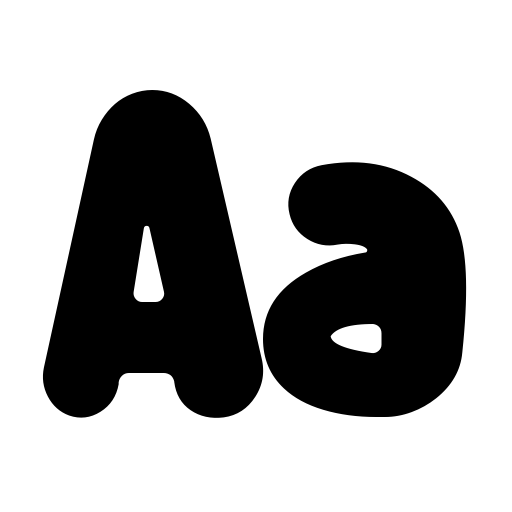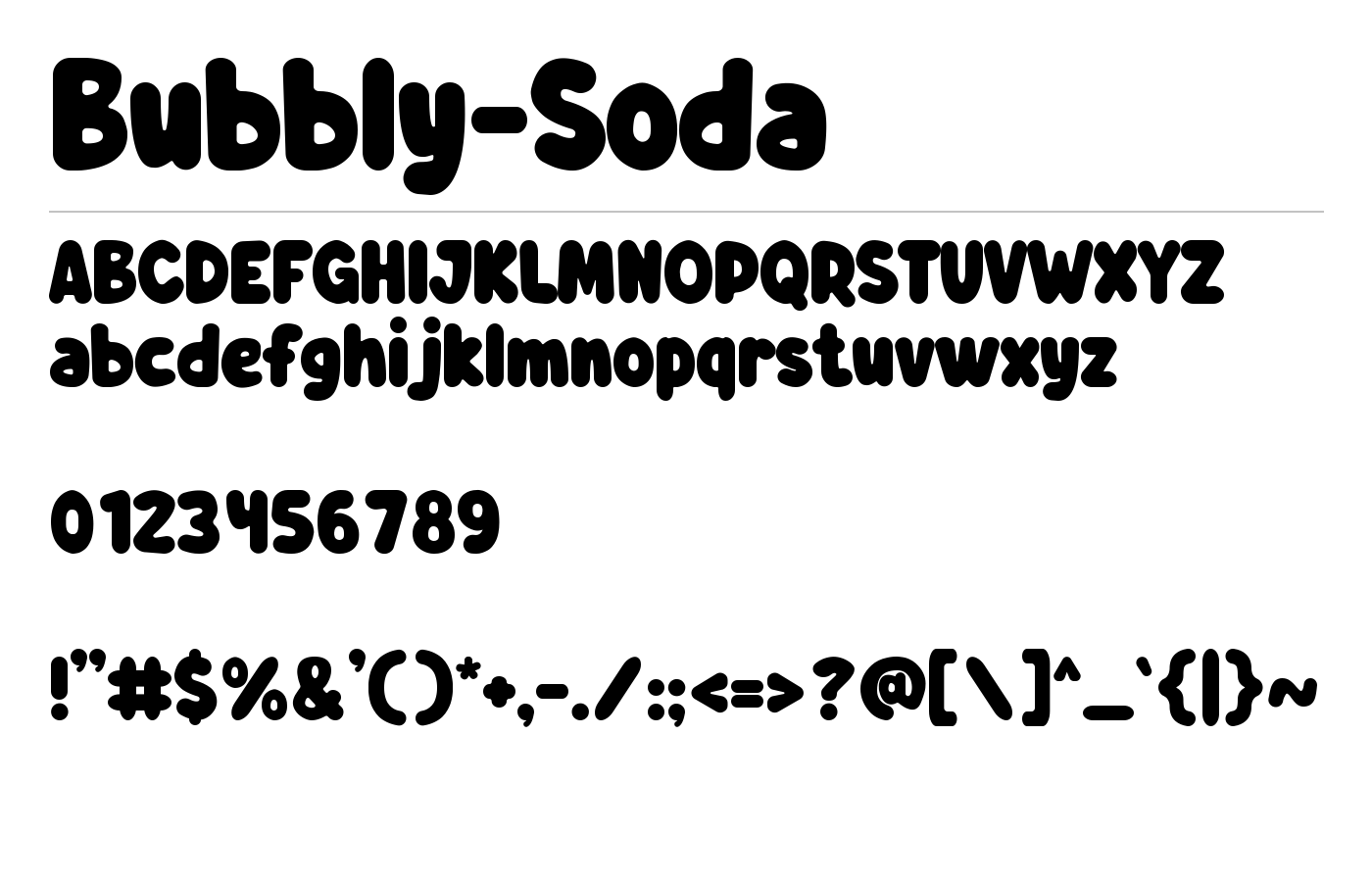
Bubbly-Soda is a playful, bold sans serif font characterized by its thick, rounded letterforms that create a soft and friendly appearance. Its chunky shapes and casual style make it perfect for fun and energetic designs, ideal for children's products, party invitations, or informal branding that seeks a cheerful and approachable vibe. This font stands out in headlines and logos where a lighthearted, whimsical touch is desired.
Bubbly-Soda Font
About Bubbly-Soda Font
| Font family | Bubbly-Soda Font |